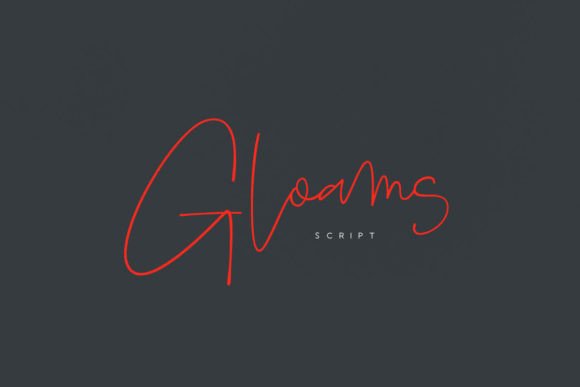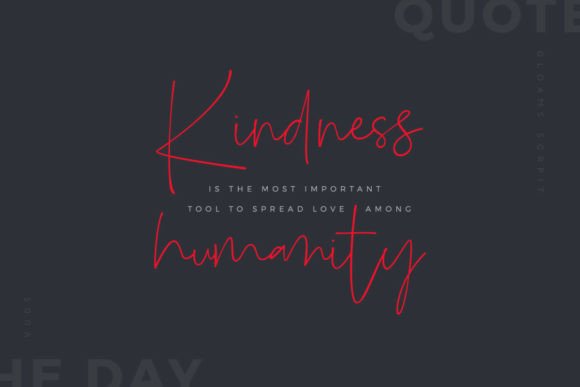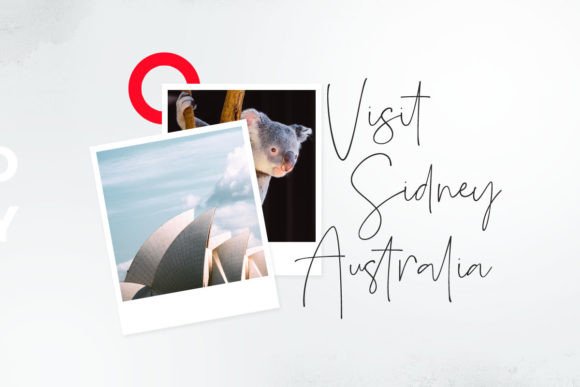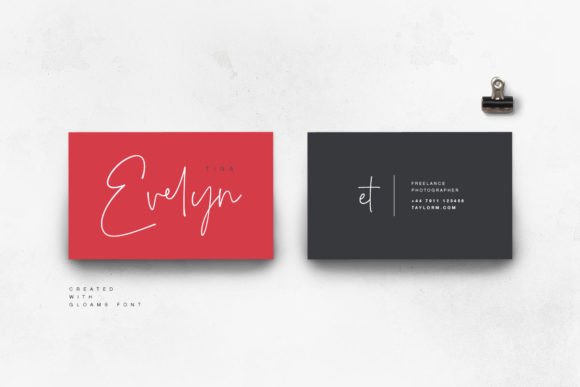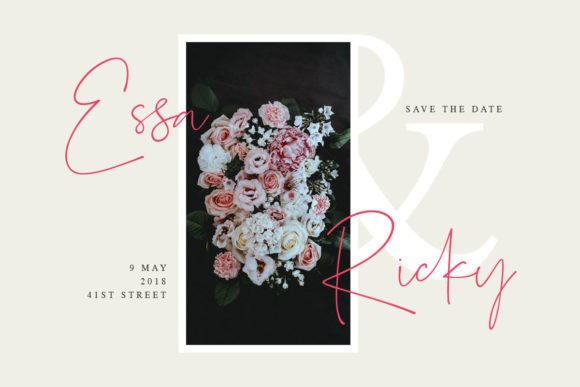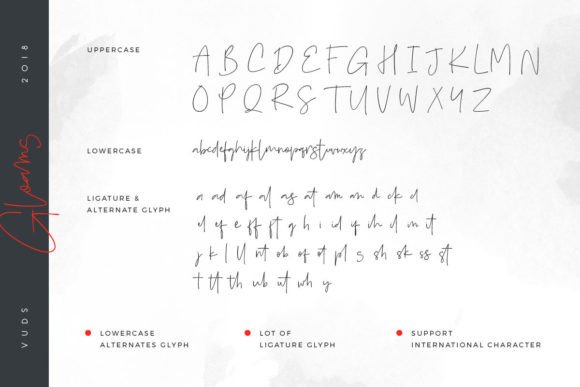
Gloams Font
About Gloams Font
Gloams is a modern and feminine script font, where each letter has been meticulously crafted to enhance the beauty of your text. With its contemporary script style, this font is an ideal choice for a diverse range of projects, including photography, watermarks, quotes, blog headers, posters, weddings, branding, logos, fashion, apparel, letters, invitations, stationery, and more.
The modern script style of Gloams brings a fresh and stylish look to your text, making it suitable for projects that require a touch of modern elegance and femininity. The carefully designed letters contribute to a cohesive and visually pleasing appearance.
For photography projects, Gloams adds a sophisticated touch to watermarks, ensuring that your visuals are not only protected but also presented with a sense of style. The font’s modern script enhances the overall aesthetic of your photographs, creating a seamless and visually appealing look.
In quotes and blog headers, Gloams becomes a standout choice. Its contemporary script style conveys a sense of refinement and creativity, making your quotes and blog headings visually appealing and memorable.
For wedding-related projects, from invitations to stationery, Gloams brings a touch of femininity and modernity. The font’s clean and stylish design complements the elegance of wedding materials, ensuring a cohesive and chic presentation.
The versatility of Gloams extends to branding and logo design, where its feminine script style helps create a distinctive and graceful visual identity. Its PUA encoding allows easy access to all glyphs and swashes, providing flexibility for customization and enhancing the uniqueness of your brand.
Whether used in fashion, apparel, letters, or any other design context, Gloams offers a modern and feminine script option. Its carefully crafted letters and smooth lines make it a font that is not only visually appealing but also conveys a sense of sophistication.
In summary, Gloams is more than just a font; it’s a modern and feminine script that enhances the beauty of your text across a diverse range of projects. Its PUA encoding ensures easy access to all the glyphs and swashes, making it a user-friendly choice for designers looking to add a touch of modern elegance to their creations.